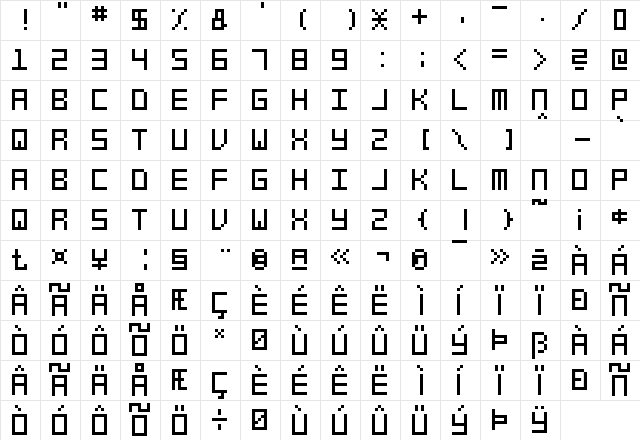
swfit_slm_fw Regular
Design Context for swfit_slm_fw Typeface
swfit_slm_fw offers clean, dependable letterforms without strong stylistic allegiance, making it a practical choice for designers who need flexibility.